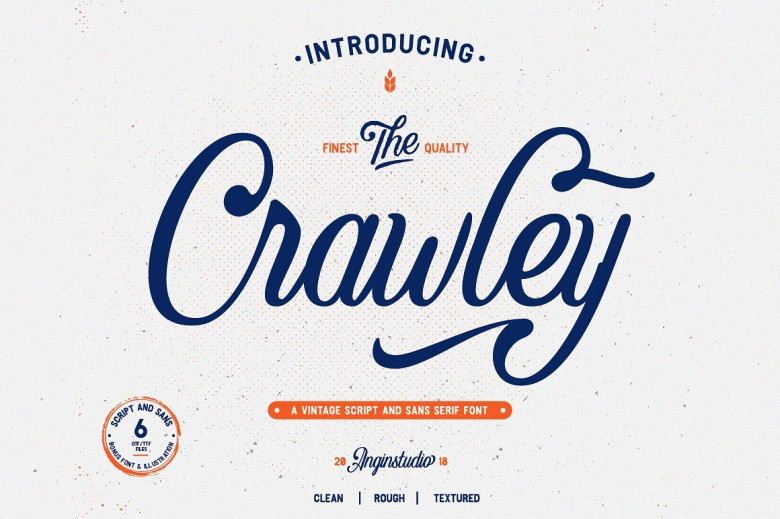
The Crawley Script Font
Hi designer. This is a very impressive font script. Introducing The Crawley Font. The Crawley is an created by Angin Studio. Crawley is a vintage script based on our hand lettering, created carefully to make a good flow and make you feel something, this font inspired by the old american packaging, signs, and labels.